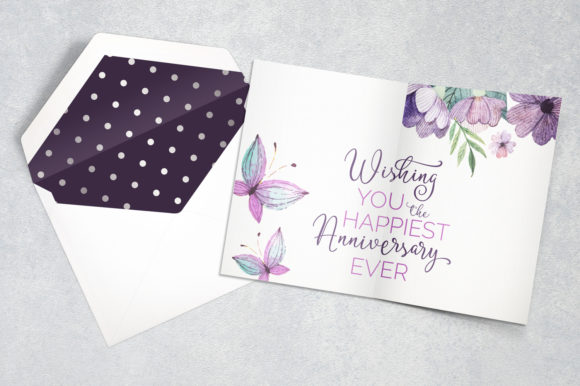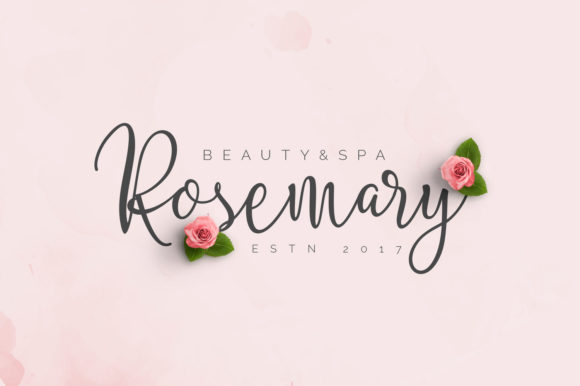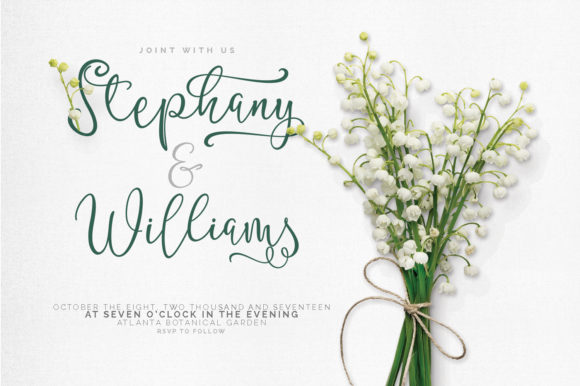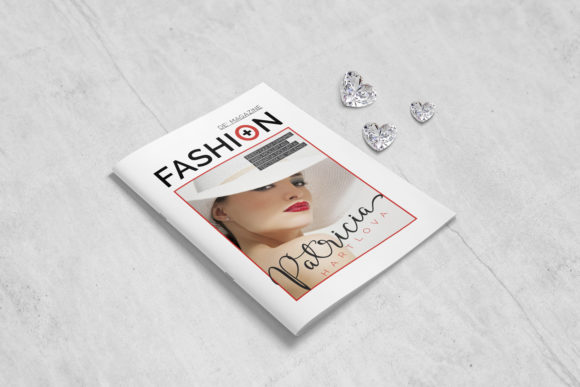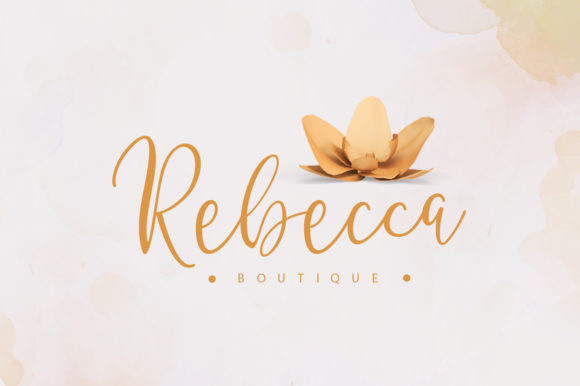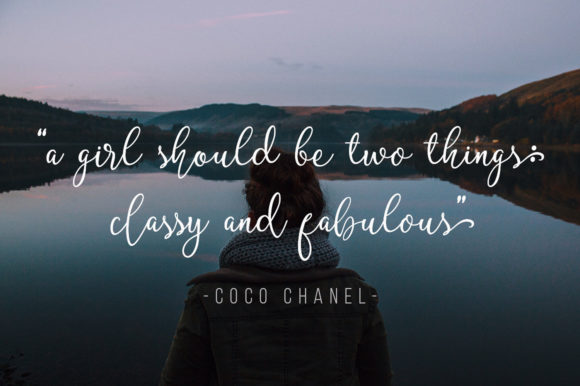
Introduction to Ramberos Font
Ramberos is a classic crafting font that will easily take any design project to the next level.
Key Features of Ramberos Font
Why Choose Ramberos Font?
Ramberos Font offers exceptional quality and versatility, making it a valuable addition to your design toolkit. Whether you’re creating for personal projects or commercial use, Ramberos Font delivers professional results.